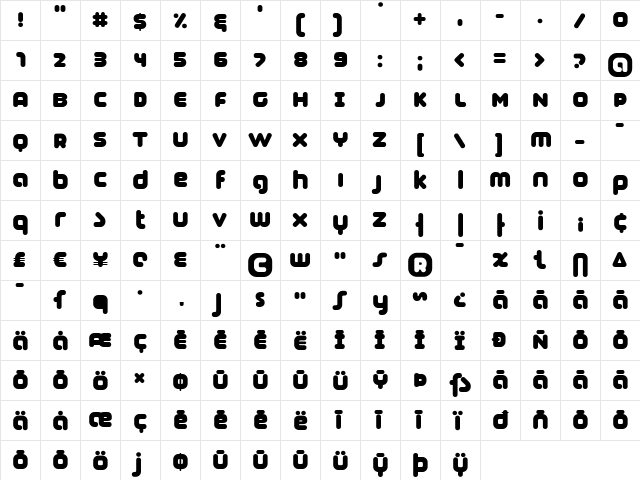
Coconut Regular
Design Context for Coconut Typeface
Coconut takes a measured approach to typography — its balanced proportions and neutral character make it a reliable workhorse for both digital and print work.